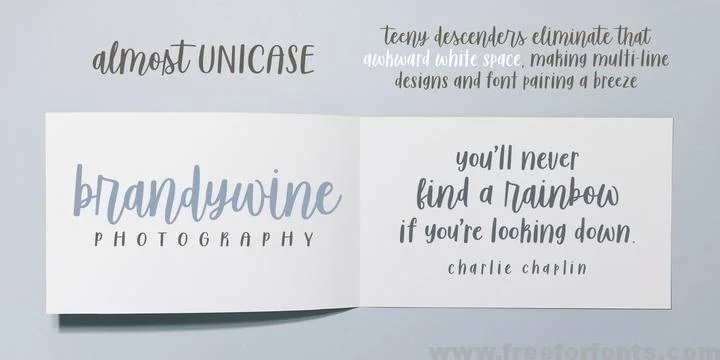
Sugar Spice Font
Sugar Spice Font is perfect for bakery branding, dessert menus, cafe logos, food packaging, recipe cards, children's book covers, party invitations, greeting cards, social media posts, sweet shop signage, product labels, and any design project that requires a playful and delightful touch.
What makes Sugar Spice Font exciting is its charming personality that evokes sweetness and joy in every letter. The font's whimsical design captures the essence of fun and creativity, making it ideal for brands that want to create a warm and inviting atmosphere. Its friendly appearance resonates with audiences looking for approachable and cheerful visual experiences, while maintaining professional quality.
The Sugar Spice Font family typically includes uppercase and lowercase characters, numerals, punctuation marks, and decorative elements that add extra sweetness to designs.